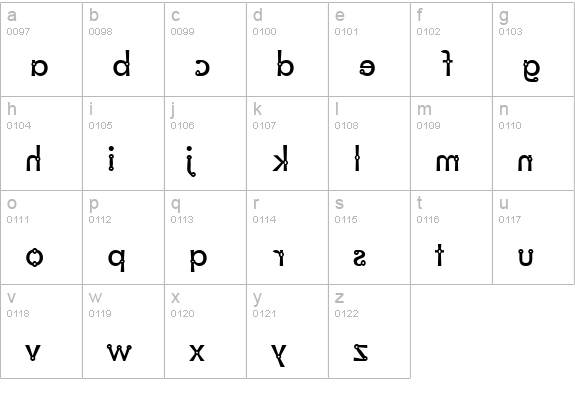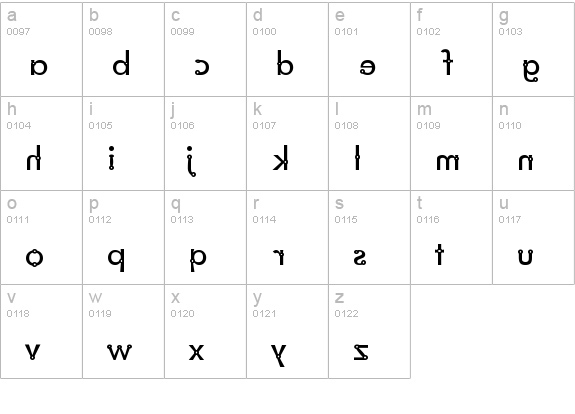
Blacksmith Delight Mirrored Font Details
The Blacksmith Delight Mirrored font is a bold and striking typeface that exudes a sense of strength and craftsmanship. With its unique mirrored design, this font is perfect for creating eye-catching headlines, logos, and other design projects that demand attention. The intricate details of the letters give a sense of handcrafted artistry, making it a versatile choice for both traditional and contemporary designs. Best of all, the Blacksmith Delight Mirrored font is available for free download at FontsMarket.com. This means you can easily add this stunning typeface to your collection without any cost. Whether you're a graphic designer, a small business owner, or just someone who appreciates beautiful typography, the Blacksmith Delight Mirrored font is sure to make a statement in your projects. Download it today and unleash the power of this exceptional font in your designs.